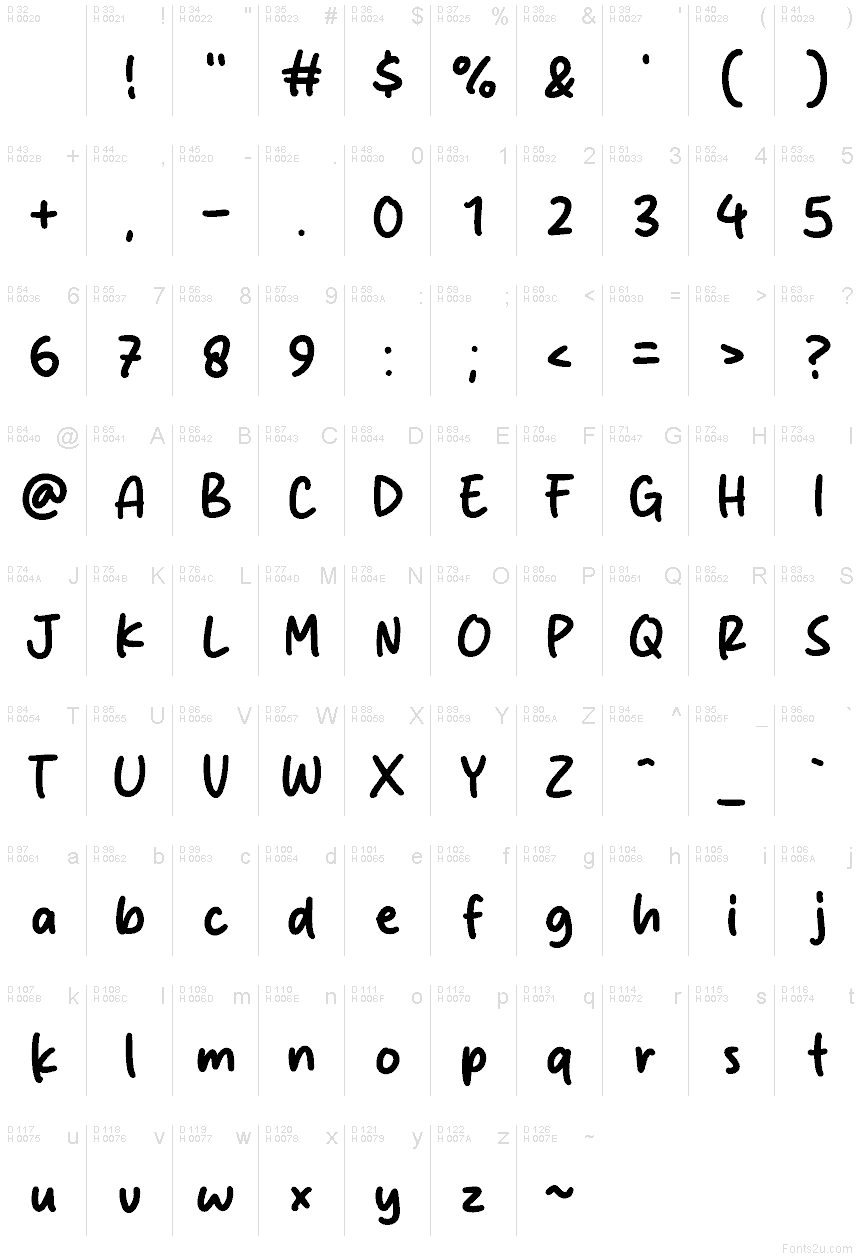
Simple Krush
Simple Krush font by Origin Type is a free handwritten font that solves the usual “cute but unreadable” problem. Its bold, rounded strokes feel inky and friendly, yet the spacing stays tidy, so lines read smoothly at both caption and headline sizes. You get warmth without wobble—a confident, brushy voice that stays clean on screens and prints.
Using Simple Krush, you can bring personality to product packaging, Instagram quotes, classroom materials, stickers, YouTube thumbnails, event flyers, and café menus. The steady rhythm keeps busy layouts from feeling messy. This free font pairs nicely with a light geometric sans for body copy; keep tracking snug for a cozy, crafted vibe.